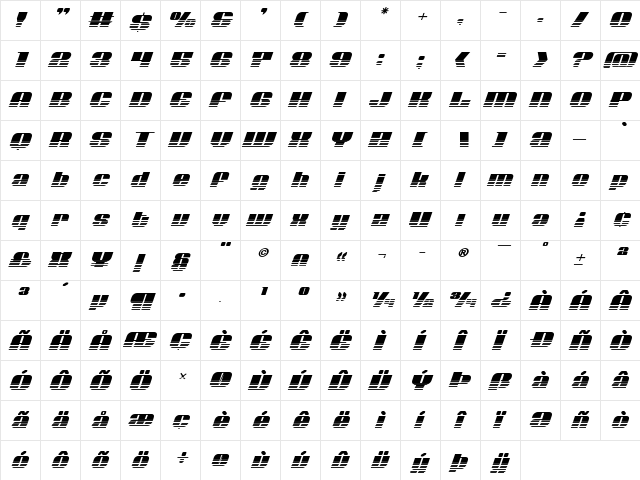
Nolo Contendre Halftone Italic Italic
Design Context for Nolo Contendre Halftone Italic Typeface
Nolo Contendre Halftone Italic is a composed and adaptable typeface that performs quietly and consistently across a wide range of design contexts. The dynamic lean of this cut emphasises speed and emphasis in any layout.
Pro Tip: Use Nolo Contendre Halftone Italic for emphasis, pull quotes, and subheadings where its slanted energy can add rhythm to the layout.